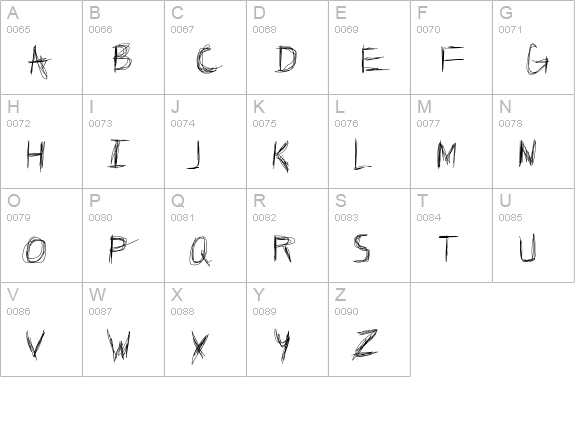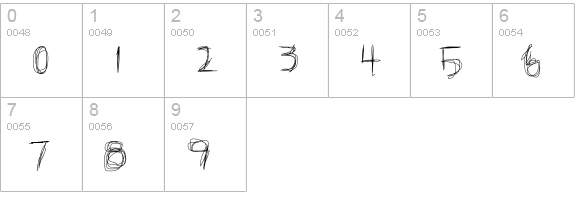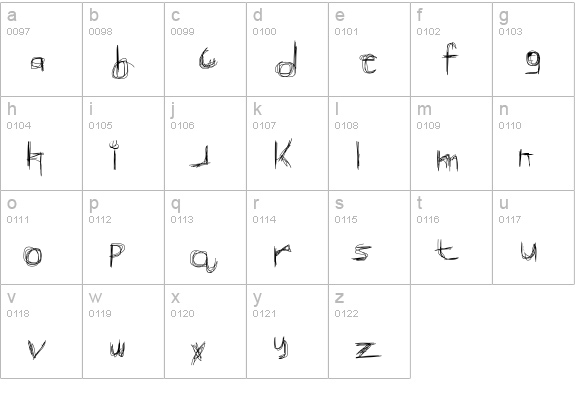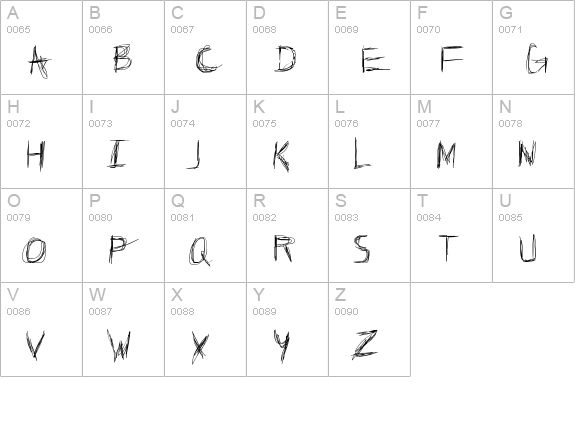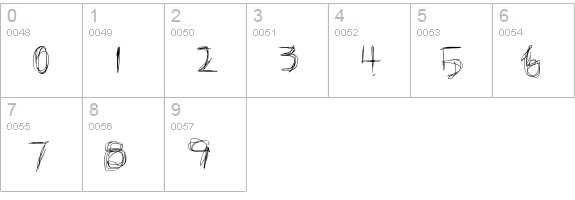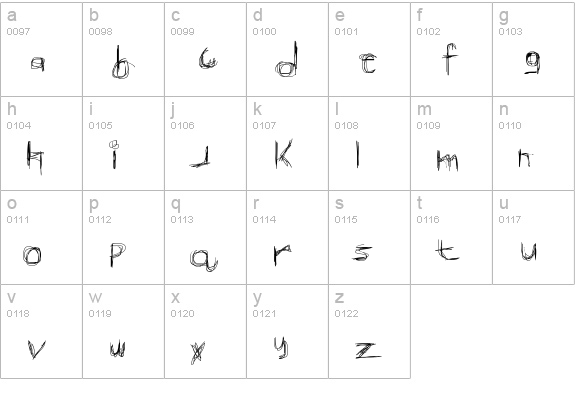
Broken Phone Nails Font Details
Broken Phone Nails font is a unique and edgy typeface that captures the essence of imperfection and urban grunge. With its irregular strokes and jagged edges, this font exudes a sense of raw energy and creativity. Perfect for adding a rebellious touch to your designs, Broken Phone Nails font is versatile and eye-catching. The best part? Broken Phone Nails font is completely free to download at FontsMarket.com. Yes, you read that right - you can get your hands on this striking font at no cost at all. Whether you're working on a poster, logo, or any other project that needs a bold and unconventional look, Broken Phone Nails font is sure to make a statement. Don't miss out on this fantastic opportunity to add a touch of urban flair to your designs with this amazing font.